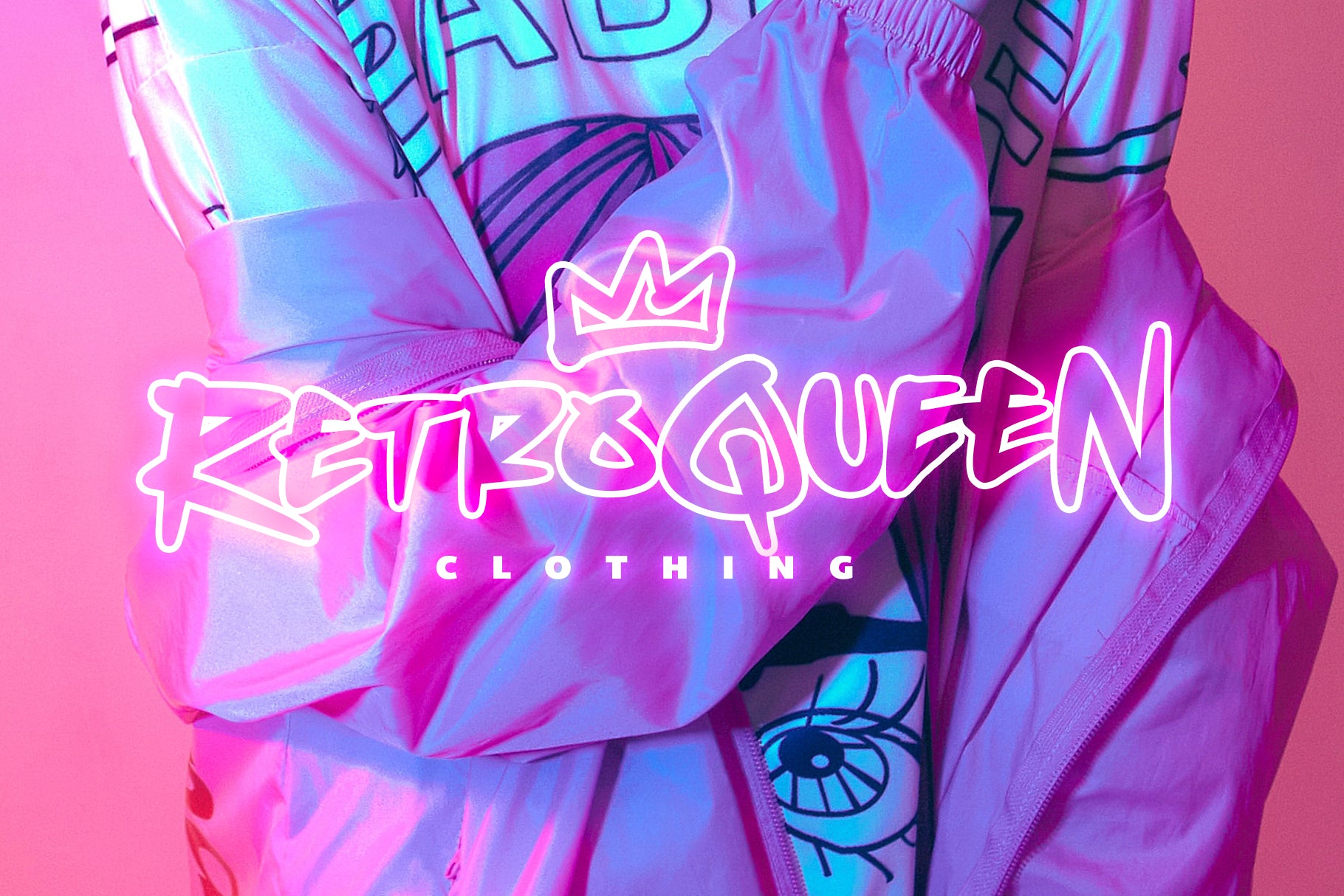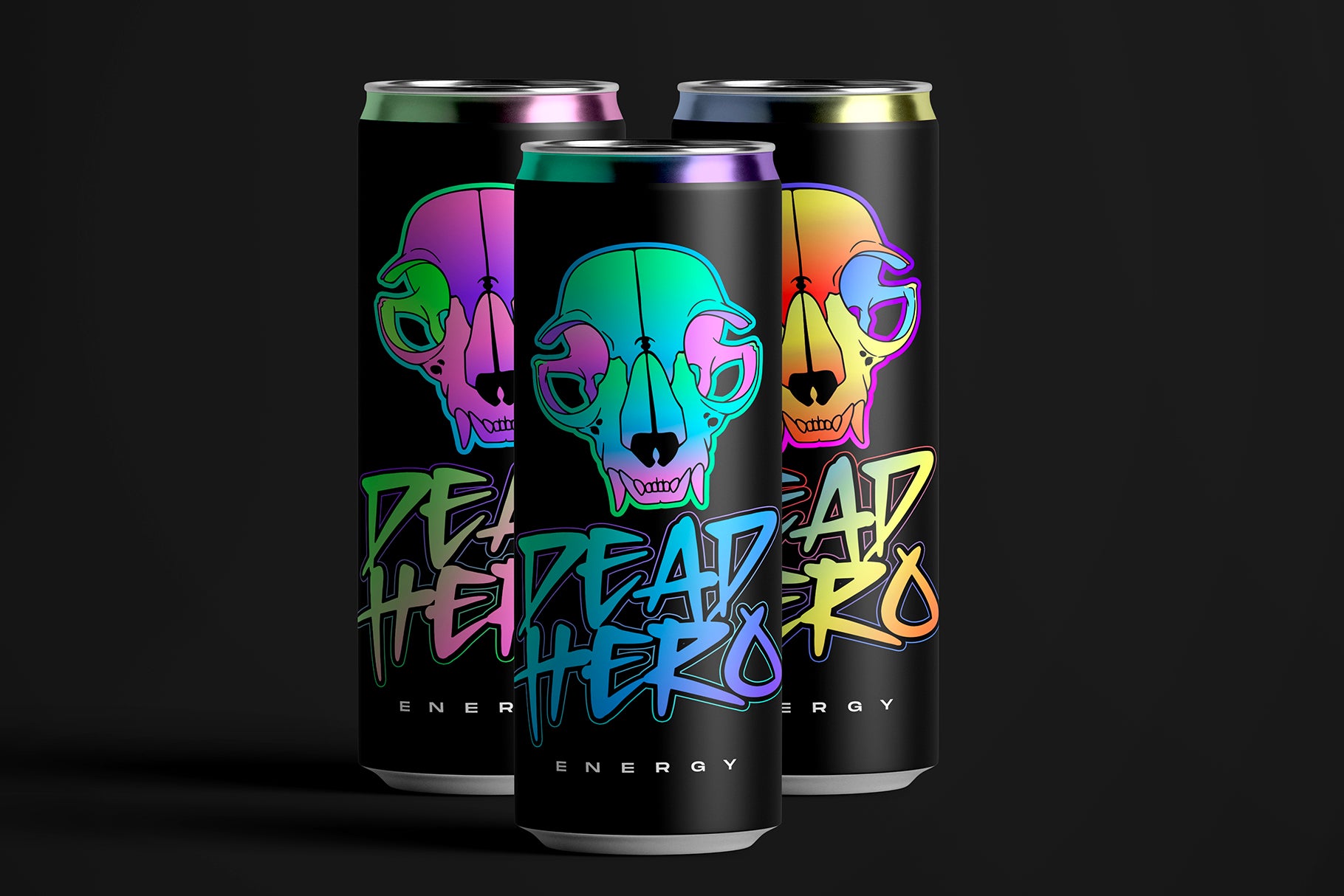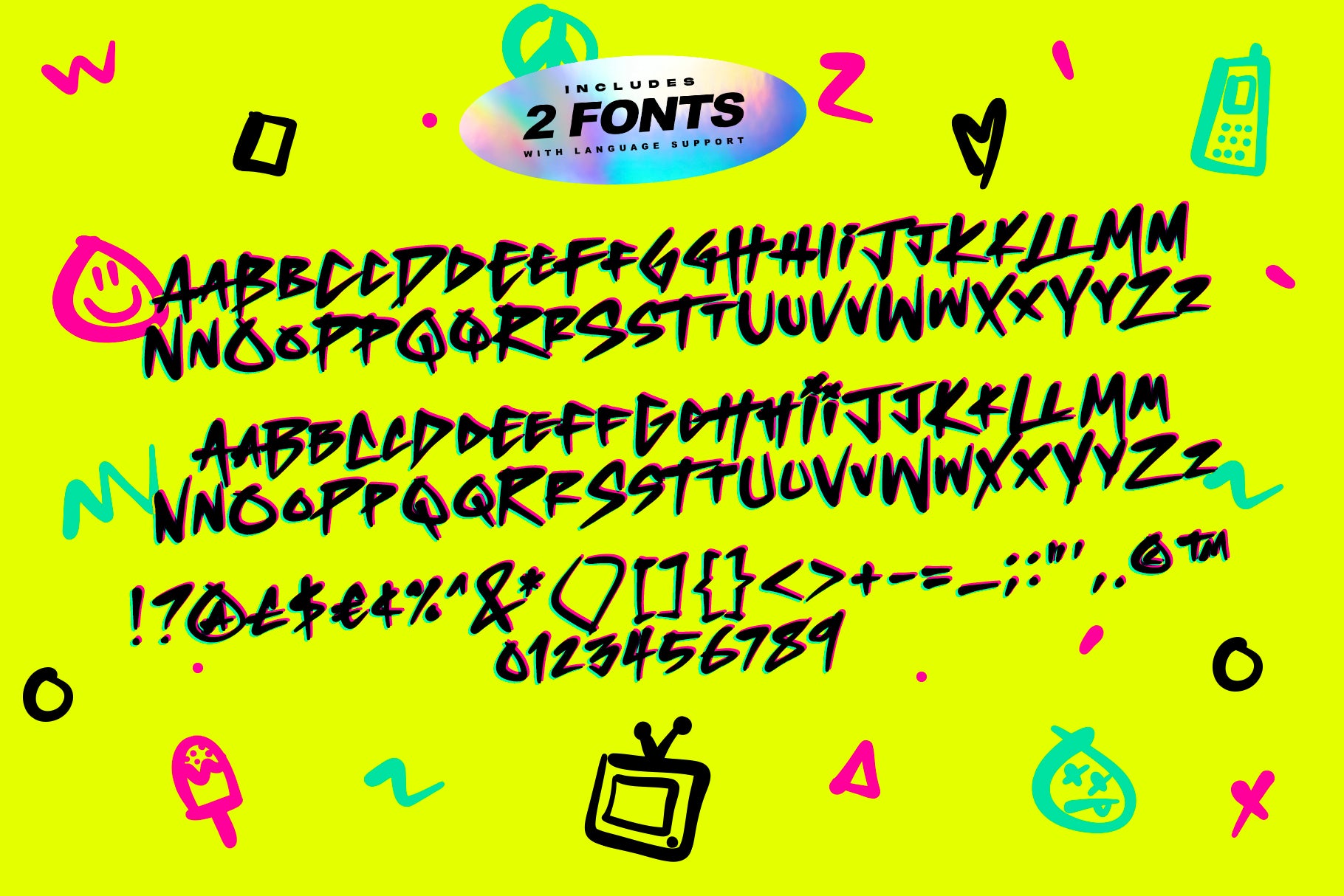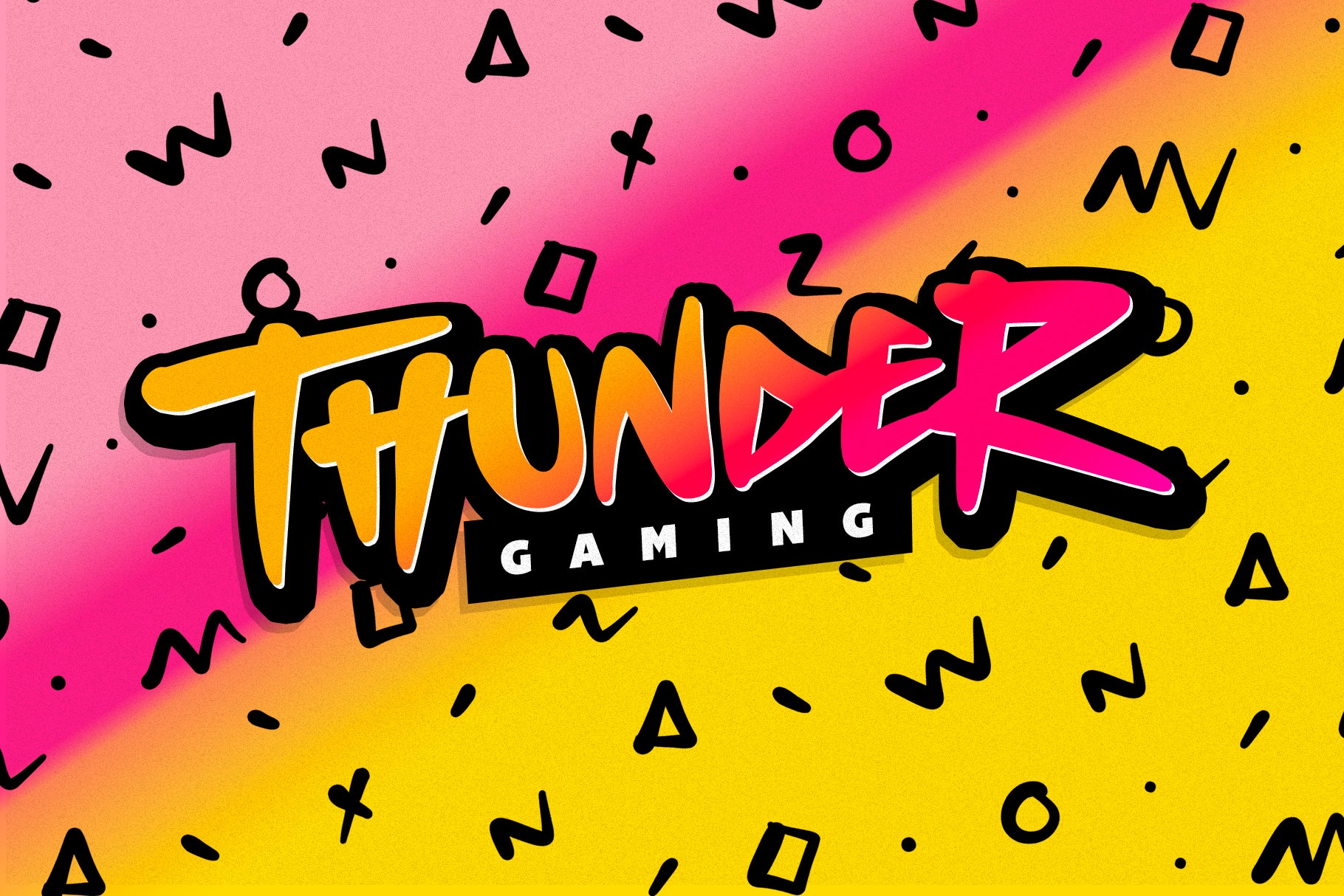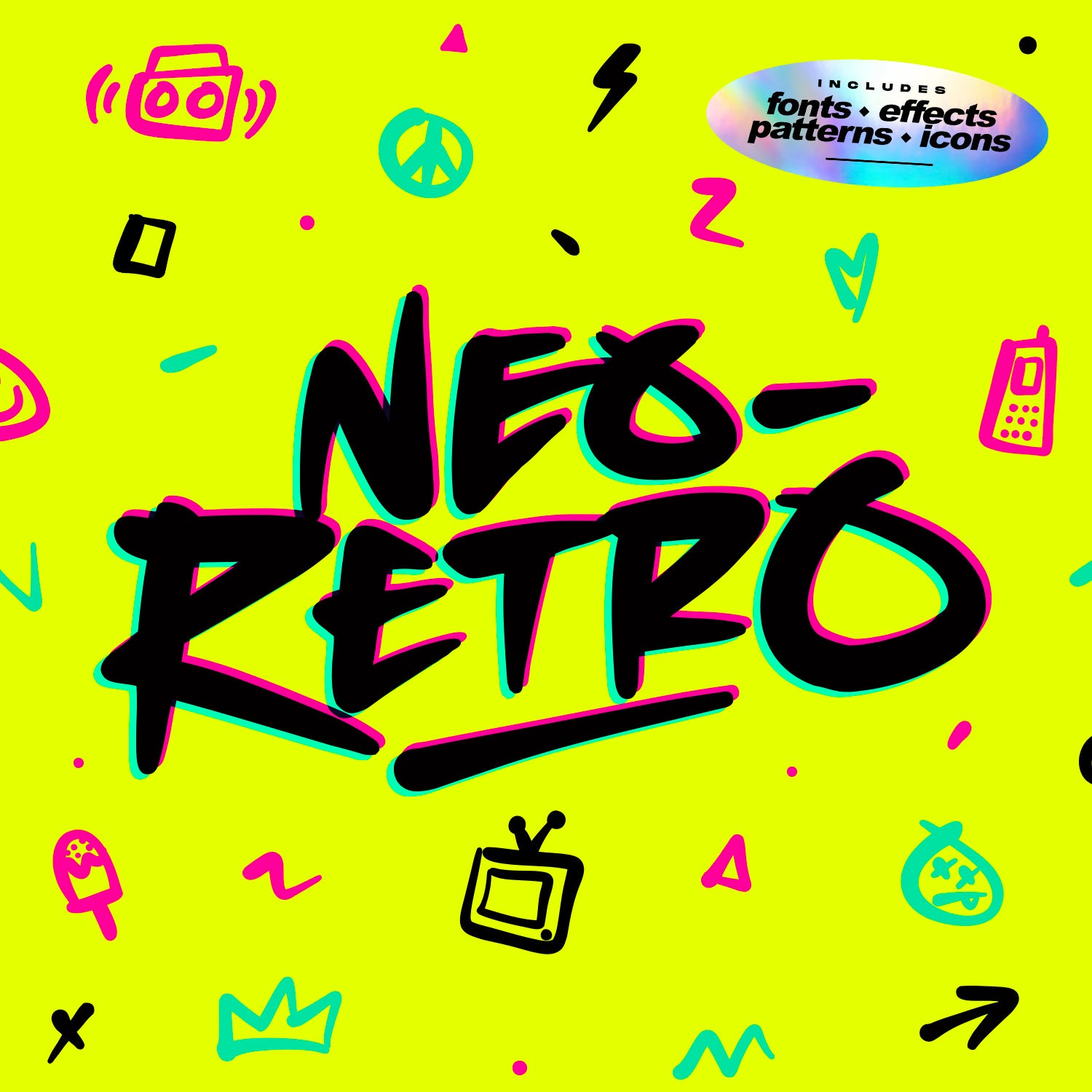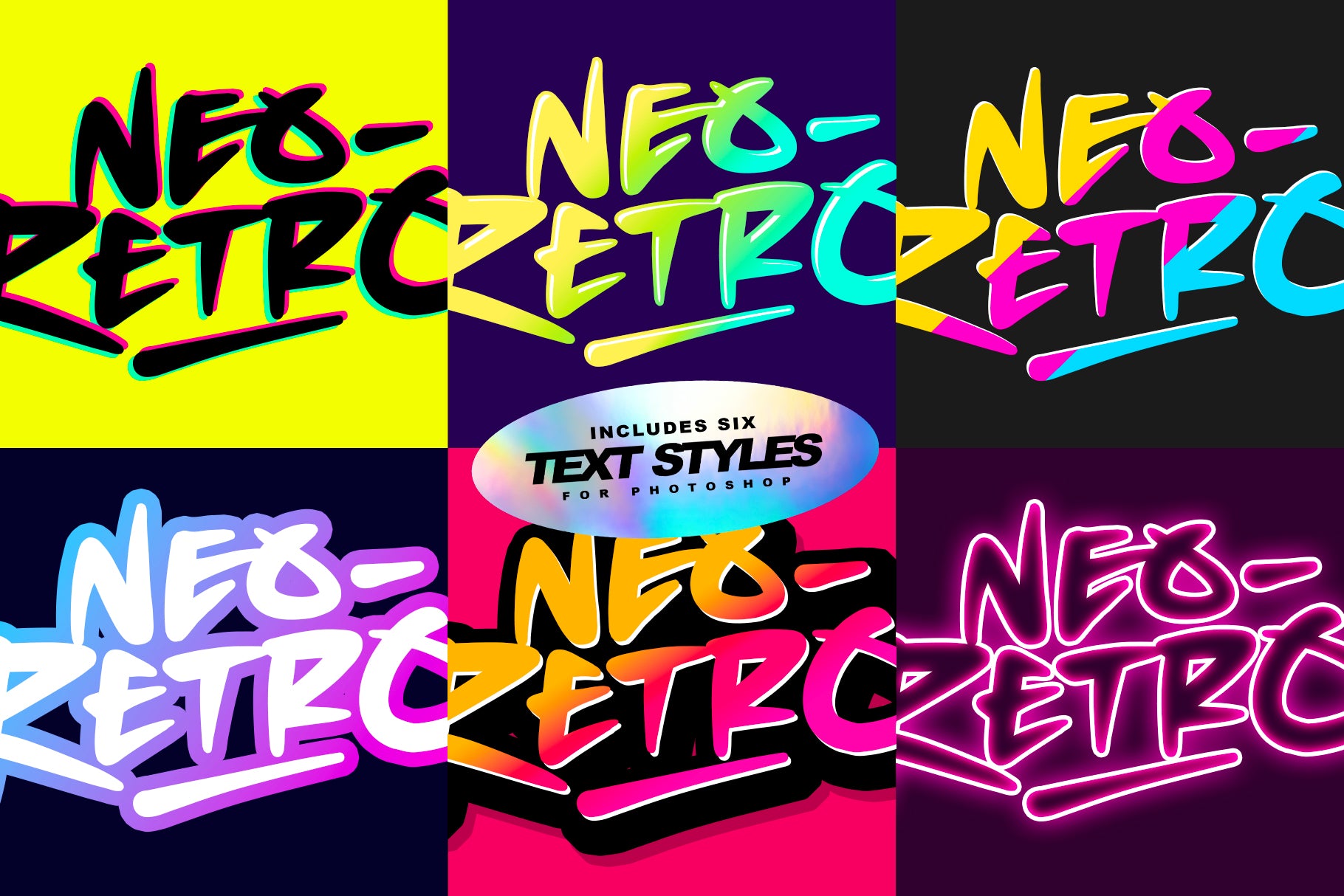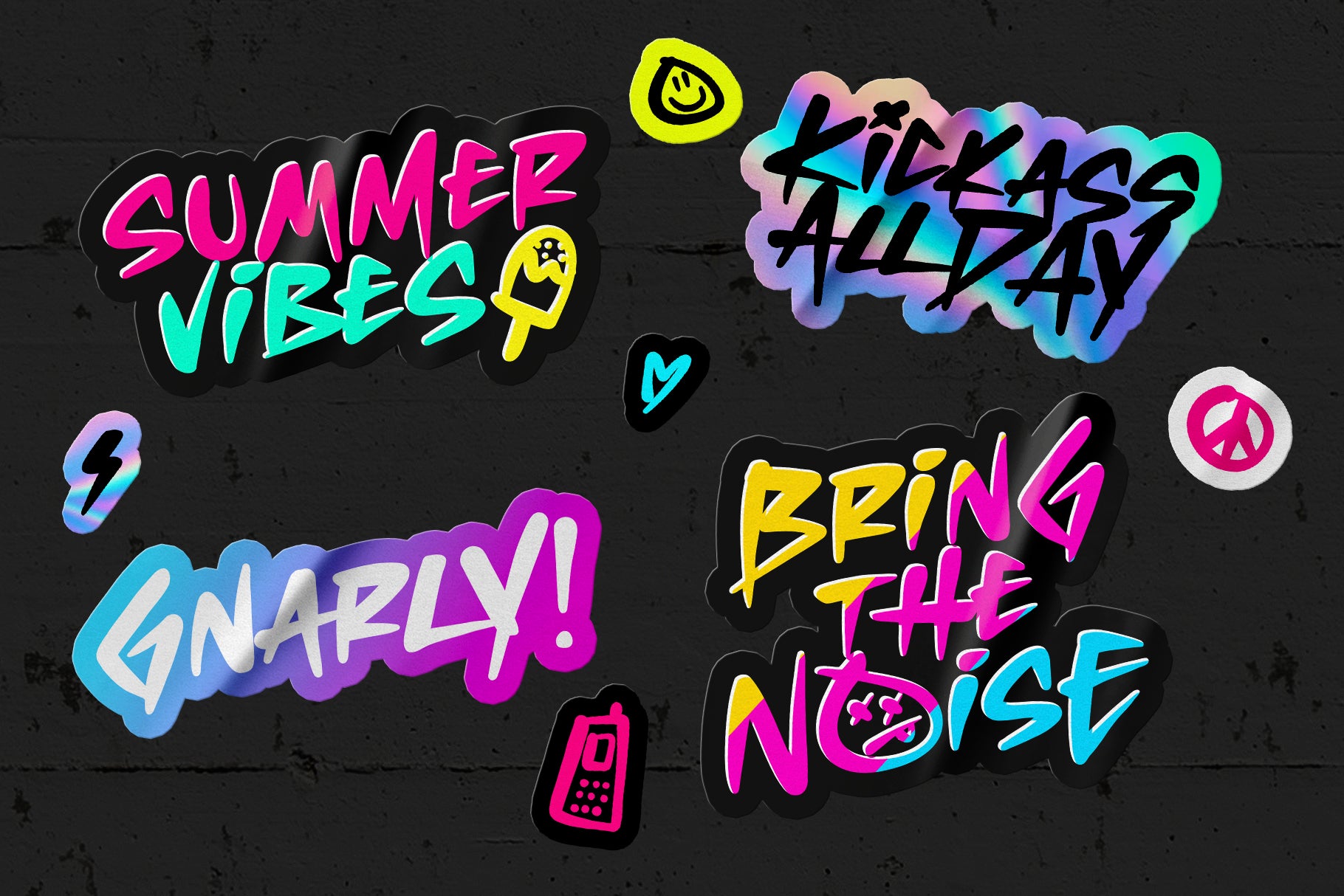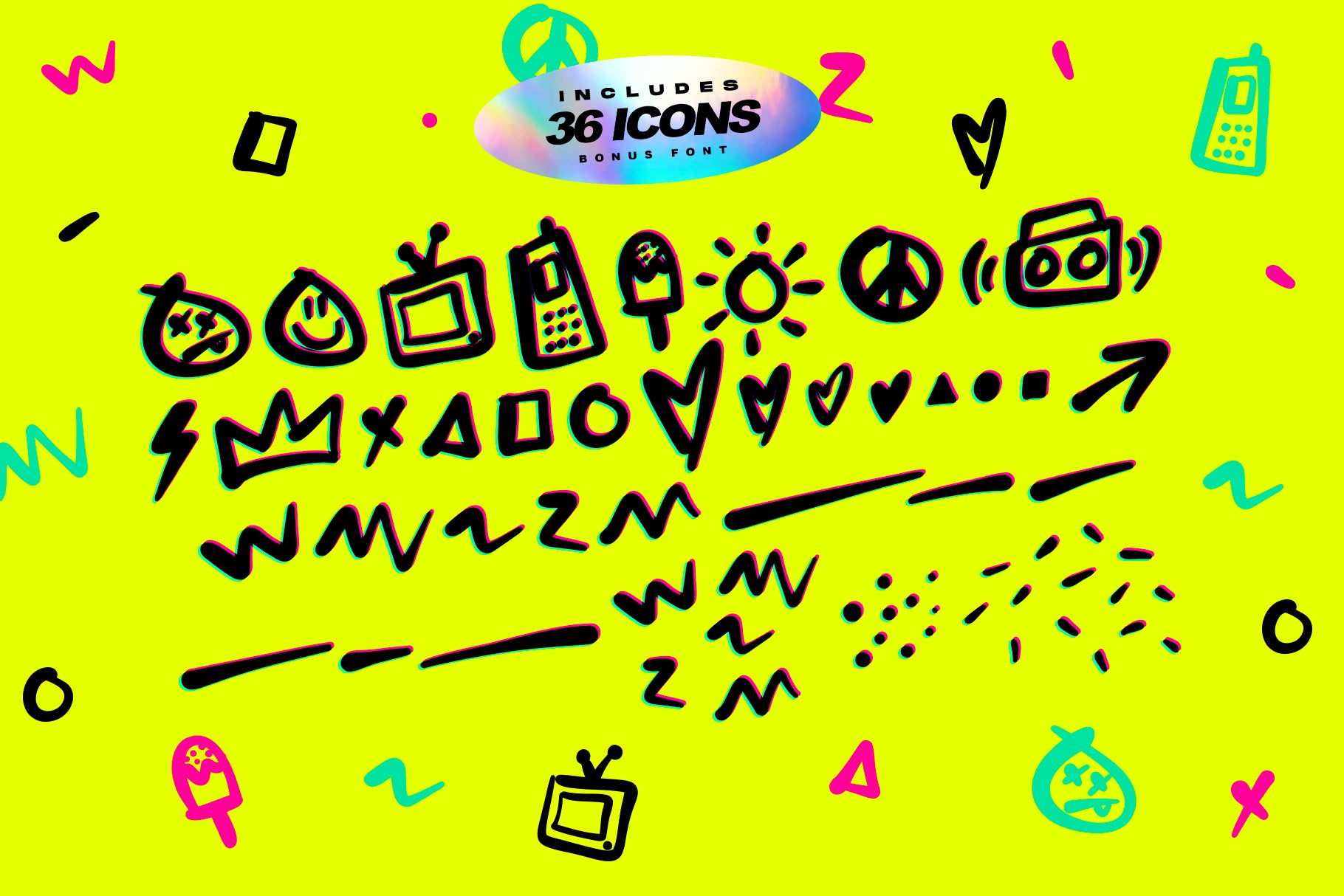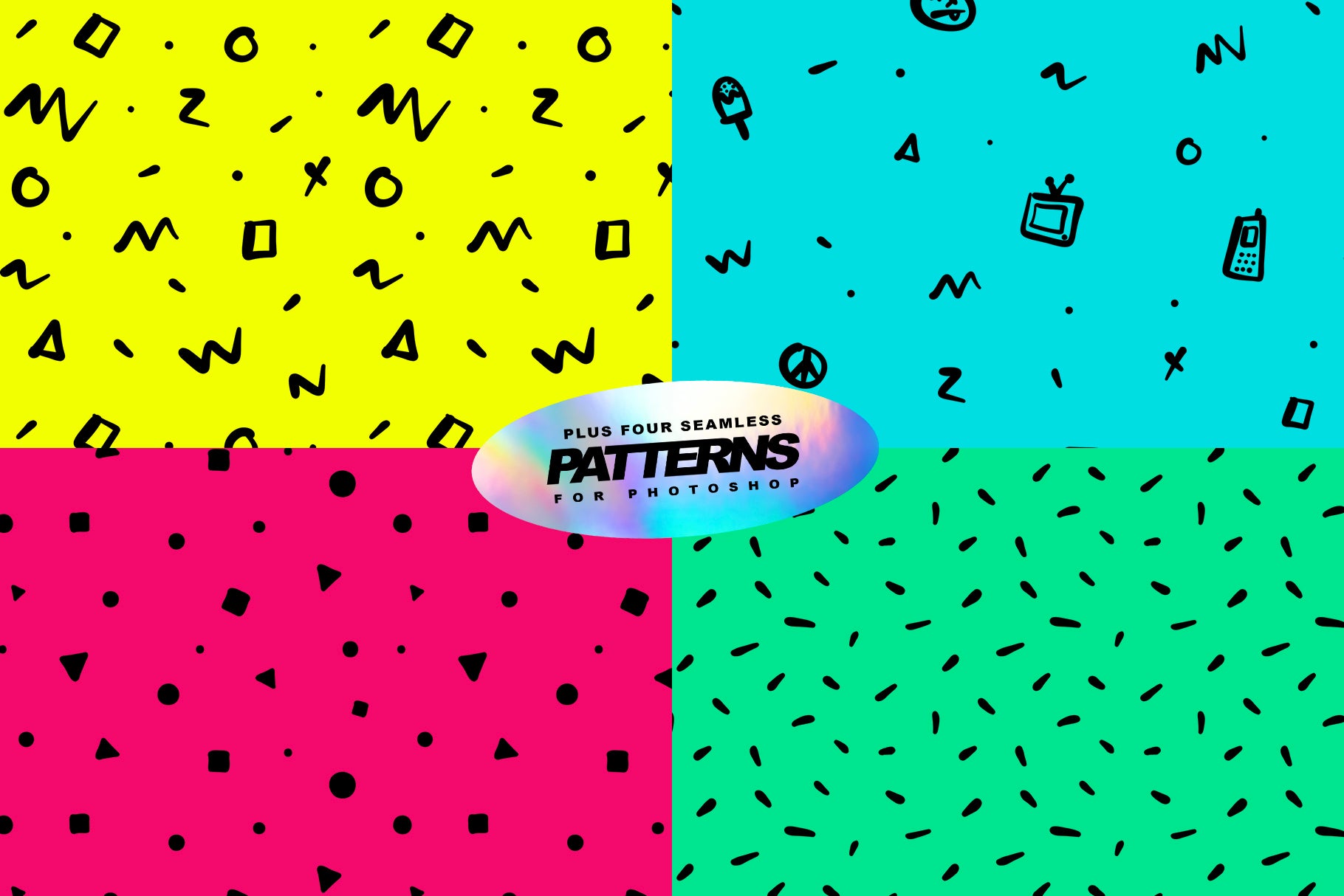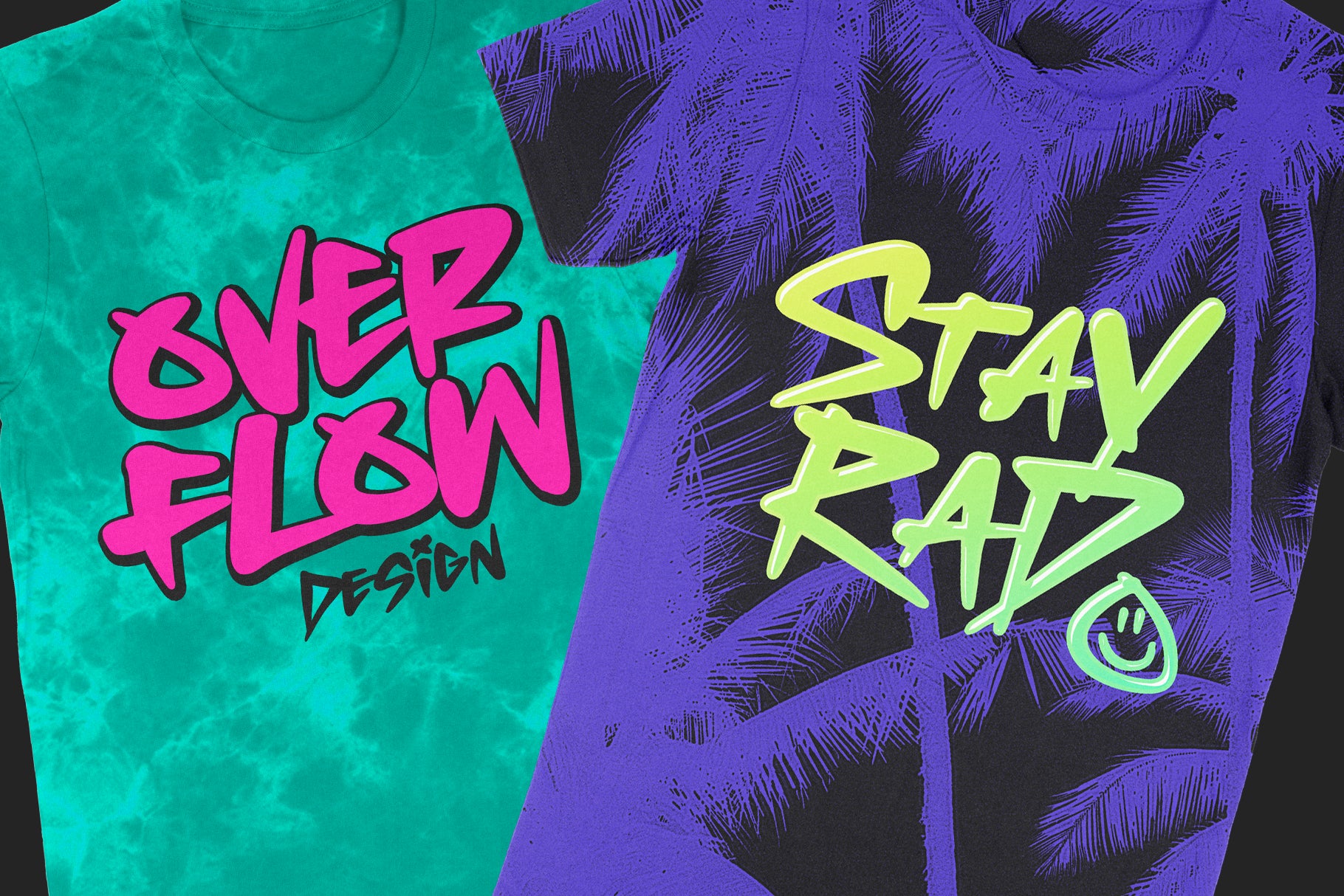
Neo-Retro Font + Extras
The Neo-Retro Font + Extras pack includes a high-energy all-caps font, an alternative font with upper and lowercase characters, a set of 36 hand-drawn icons, 6 Photoshop text styles, and 4 seamless patterns for background use. This collection is designed to facilitate the creation of vibrant, 90s-inspired designs.